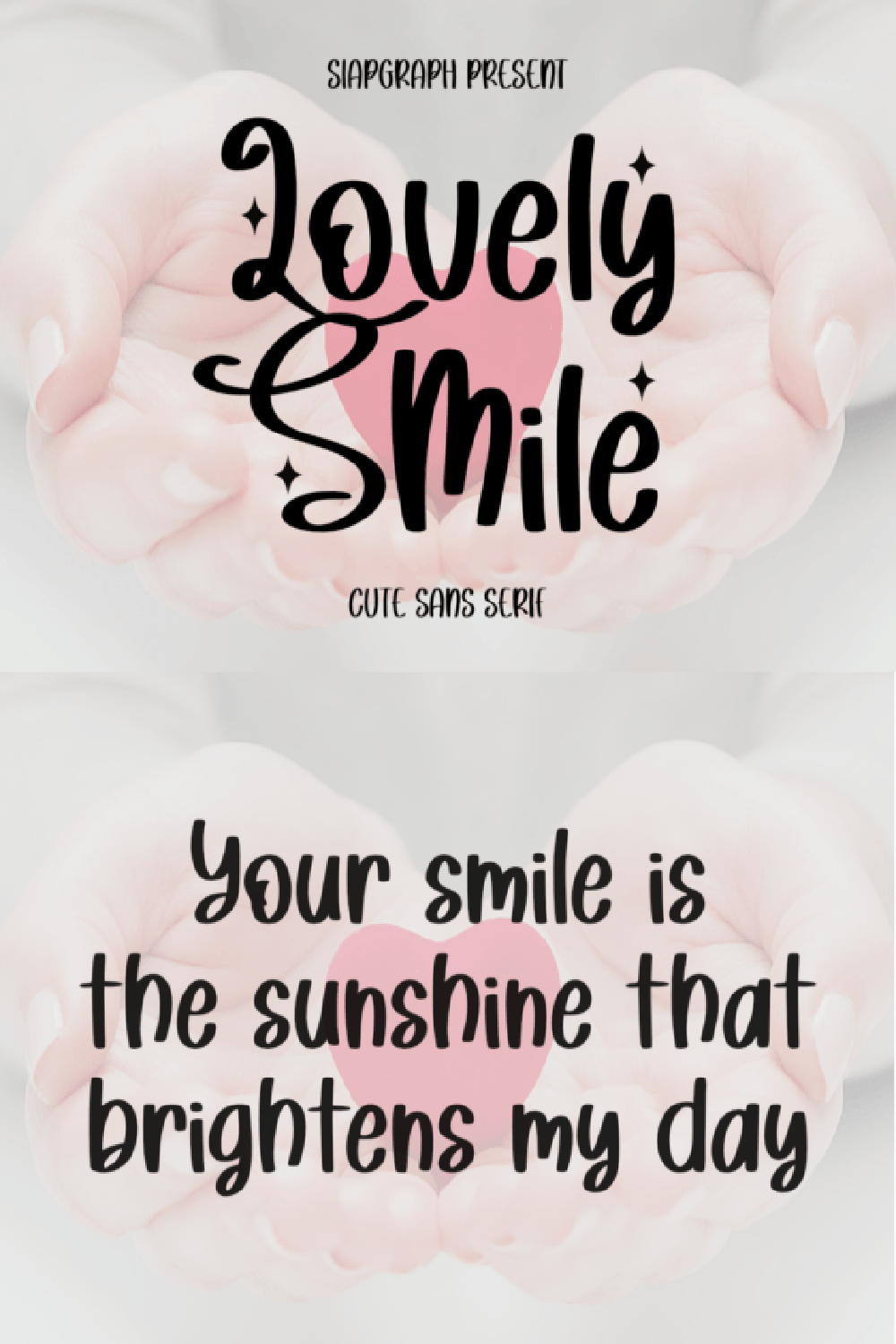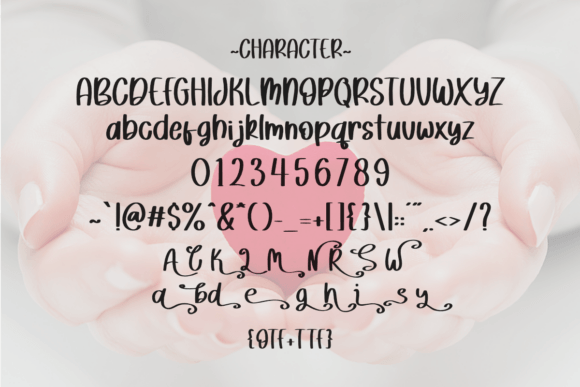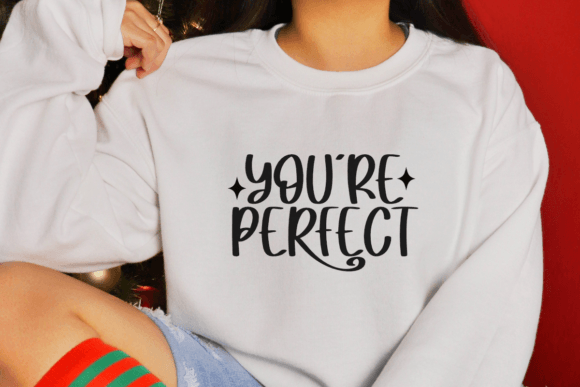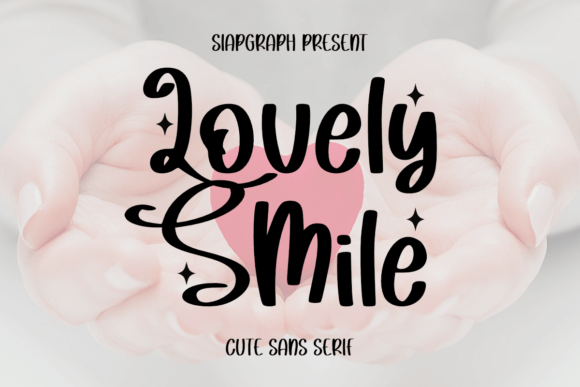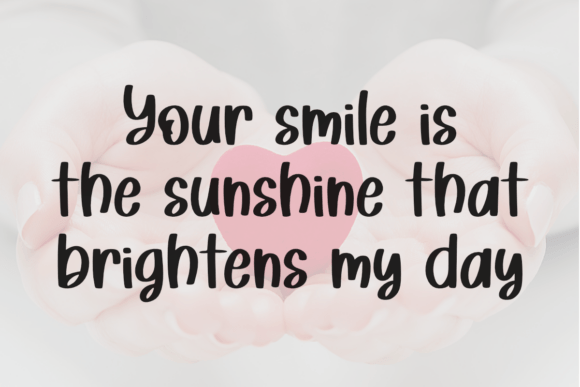
Lovely Smile Font: A Cute Sans Serif for Cricut & Valentine’s Day
About the Lovely Smile Font
Presenting Lovely Smile Font, a unique and stylish typeface that will make your work stand out. Introducing Lovely Smile, your go-to delightful and lighthearted sans serif font that beautifully mirrors joy and whimsy, with its charming and unique style. Infused with natural strokes and subtle touches, it dances upon the page, adding an extra sparkle to your designs. Ideal for infusing a touch of romance for Valentine’s season, it is the perfect choice for Valentine’s greeting cards, trendy apparel, jewelry, and other various holiday inspired creations.
But don’t confine its usage to only Valentine’s day, because Lovely Smile transcends borders and seasons. Its versatility shines through in journals, planners, teaching materials, and an extensive array of DIY crafts and projects—making it a wonderful companion for Cricut, silhouette art, and sublimation designs. It is as fashionable as it is functional, effortlessly complementing women’s attire and accessory designs.
Love popping florals or modernist abstract designs? How about personalized holiday or patriotic themed decorations? Lovely Smile is your trusty companion, always ready to add a unique spin to your creative pursuits. This font is a testament to its name, capable of evoking a lovely smile on any design, whether it be engraving on key chains, laser designs, Christmas SVG designs, or even something as quirky as Great Dane-themed crafts.
No matter the project, Lovely Smile is here to uplift your font repertoire and bring your creations to life. Experience the potential this dynamic font exudes, and watch your artwork flourish like never before.